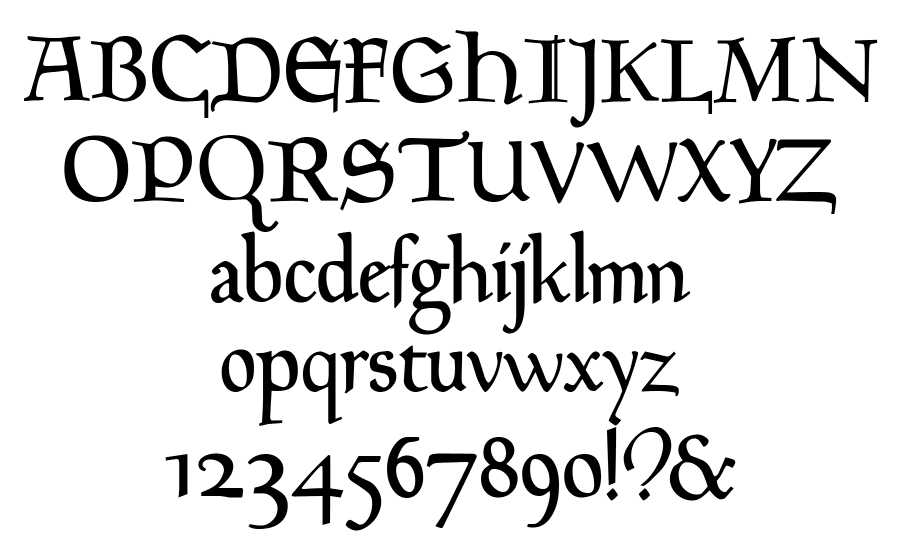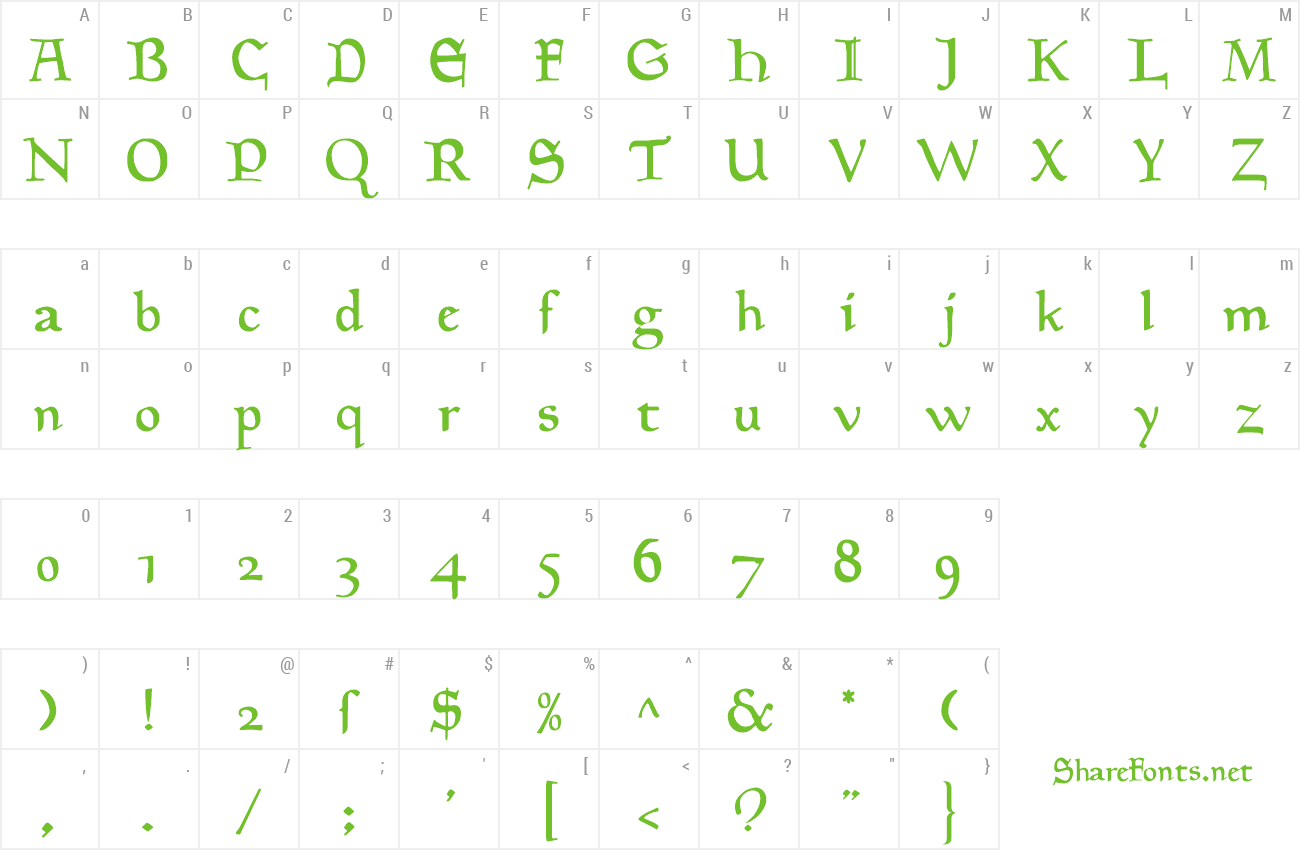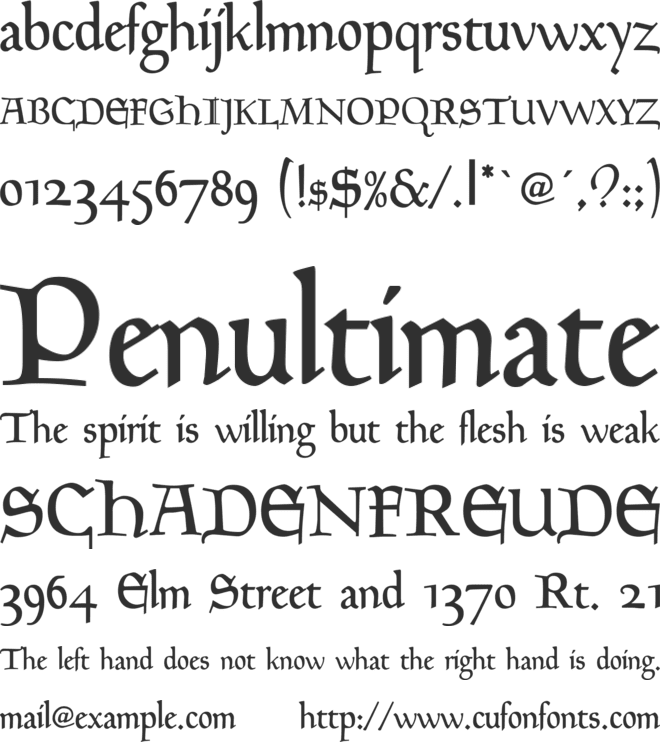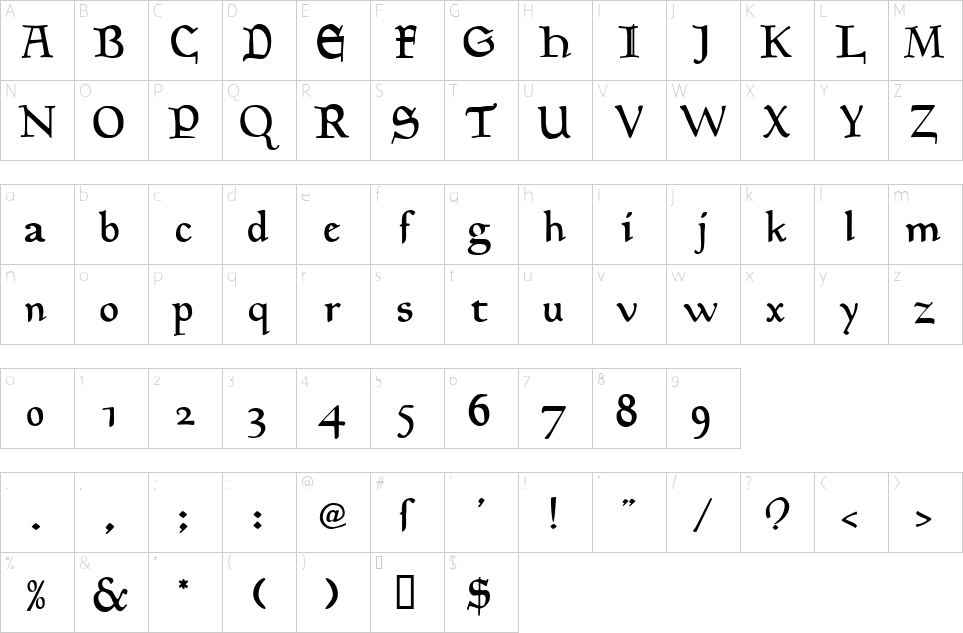
Goudy Medieval Font
Goudy Medieval Font - The goudy medieval font has been downloaded 63,878 times. Web download the goudy medieval font by dieter steffmann. A revival of frederic goudy's 'goudy oldstyle' with regular and italic styles, and extended.